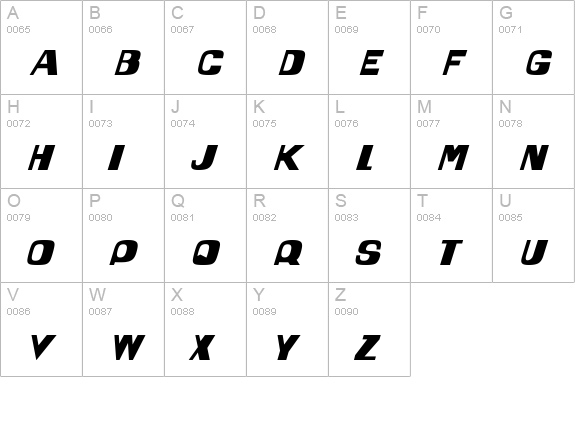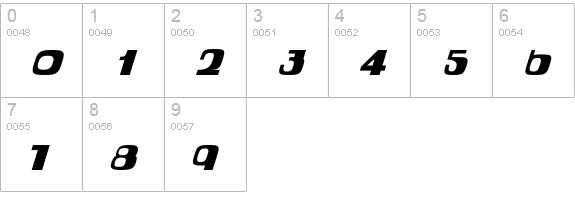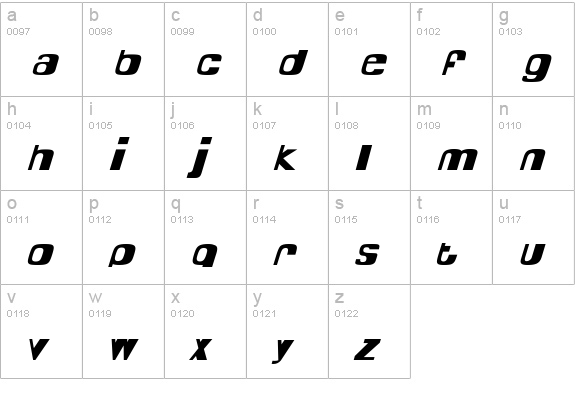
Quel Font Details
Quel font is a stunning typeface that effortlessly captures attention with its unique and captivating design. With a perfect balance between elegance and modernity, this font is sure to enhance any project it is used in. Featuring sleek and stylish letterforms, Quel font exudes a sense of sophistication and professionalism. Its clean lines and smooth curves give it a contemporary edge, making it perfect for a wide range of applications, from branding and logo design to editorial layouts and website headers. What sets Quel font apart is not only its impeccable aesthetics but also its accessibility. This remarkable typeface is available for free, allowing designers and enthusiasts alike to enjoy its beauty without any cost. You can easily download Quel font from FontsMarket.com, a trusted source for high-quality fonts. Whether you're a seasoned designer or just starting out, Quel font offers endless possibilities to unleash your creativity. Its versatility makes it suitable for various design projects, including advertisements, packaging, posters, and much more. With Quel font in your toolkit, you can effortlessly create eye-catching designs that will leave a lasting impression. Don't miss out on the opportunity to add this amazing font to your collection. Download Quel font for free at FontsMarket.com and unlock a world of endless design possibilities. With its exquisite design and accessibility, Quel font is the perfect choice for any project that requires a touch of elegance and style.